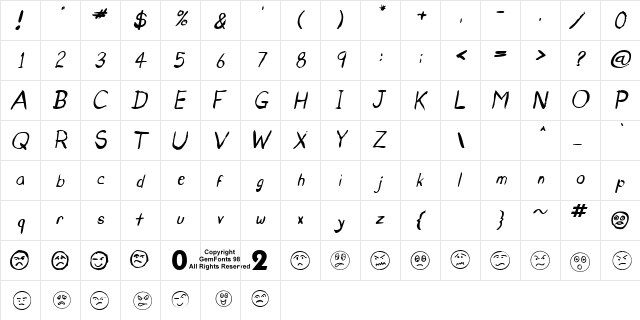
Untidy Italic Skrawl Regular Font Preview
Untidy Italic Skrawl Regular
Design Context for Untidy Italic Skrawl Typeface
Untidy Italic Skrawl takes a measured approach to typography — its balanced proportions and neutral character make it a reliable workhorse for both digital and print work. The slanted form adds forward momentum and visual energy.